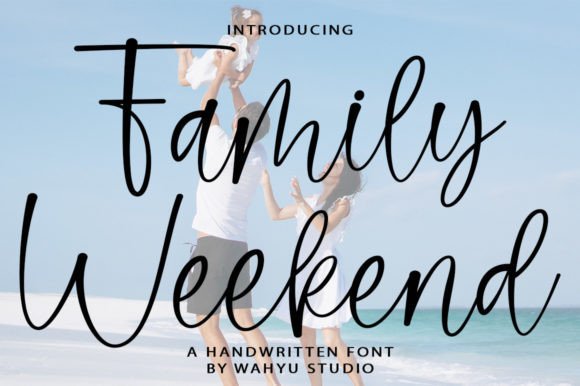
Step into a world of elegance and charm with Family Weekend Font, the script font that will transform your designs into captivating works of art. Crafted with meticulous attention to detail by the talented wahyu studio, Family Weekend Font exudes a harmonious blend of sophistication and playfulness, making it the perfect choice for a wide range of creative projects.
With its graceful curves and delicate strokes, Family Weekend Font brings a touch of timeless beauty to your designs. Imagine your wedding invitations adorned with this exquisite script, adding a layer of romance and elegance to your special day. Personalize your thank-you cards with heartfelt messages written in Family Weekend Font, expressing your gratitude with a touch of charm. Let your quotes and greeting cards come alive with the captivating allure of this font, leaving a lasting impression on your recipients.
Unleash your creativity with Family Weekend Font and elevate your logos and business cards to new heights of sophistication. Its versatile nature makes it suitable for a variety of design styles, from classic and traditional to modern and contemporary. Whether you're creating branding for a new business or simply adding a personal touch to your existing designs, Family Weekend Font is the perfect choice to make a statement.
But Family Weekend Font's versatility doesn't stop there. Its charm extends to every design project that demands a handwritten touch. From product packaging and labels to social media graphics and website headers, Family Weekend Font adds a touch of elegance and personality that will capture your audience's attention.
So why settle for ordinary fonts when you can elevate your designs with Family Weekend Font? Its captivating beauty and endless possibilities will transform your creative projects into masterpieces that leave a lasting impression. Join the growing community of designers and creatives who have discovered the magic of Family Weekend Font and unlock a world of design possibilities.